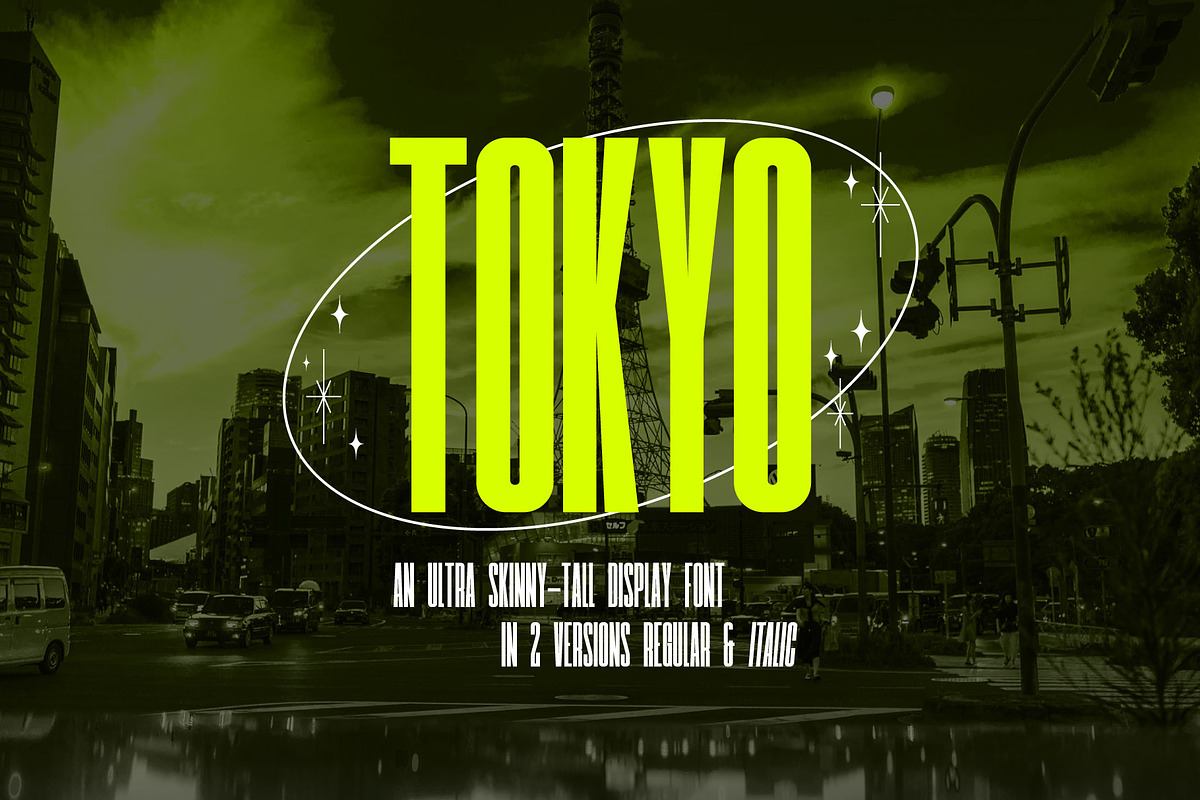
The TOKYO – Ultra Tall Display Font Free Download is a sleek and futuristic typeface that features extremely elongated letterforms, perfect for fashion branding, modern posters, techno themes, editorial headlines, and cutting-edge digital content. Its ultra-tall style delivers instant impact and a unique visual identity.
With a minimalist design and bold vertical presence, TOKYO is built for attention-grabbing layouts. The font includes uppercase letters, numbers, punctuation, and multilingual support—making it a bold, functional choice for designers aiming for a high-fashion or cyber-inspired aesthetic.